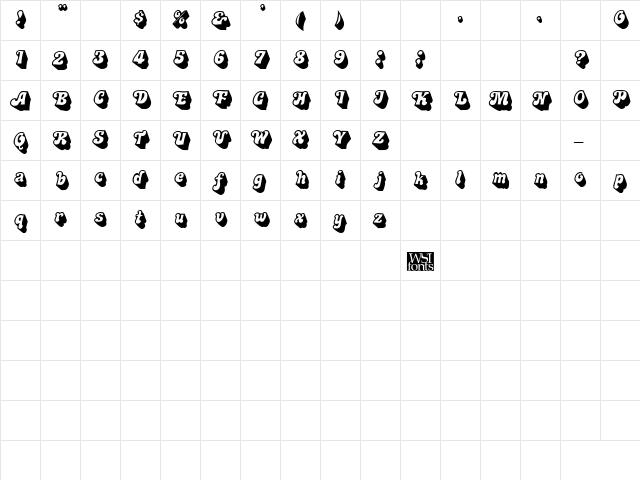
Murdock Bold Italic Font Preview
Murdock Bold Italic
Murdock Bold Italic Font Details
Design Context for Murdock Typeface
Murdock is a composed and adaptable typeface that performs quietly and consistently across a wide range of design contexts. The dynamic lean of this cut emphasises speed and emphasis in any layout. The heavy weight commands attention and anchors typographic hierarchies.
Pro Tip: Use Murdock for emphasis, pull quotes, and subheadings where its slanted energy can add rhythm to the layout.